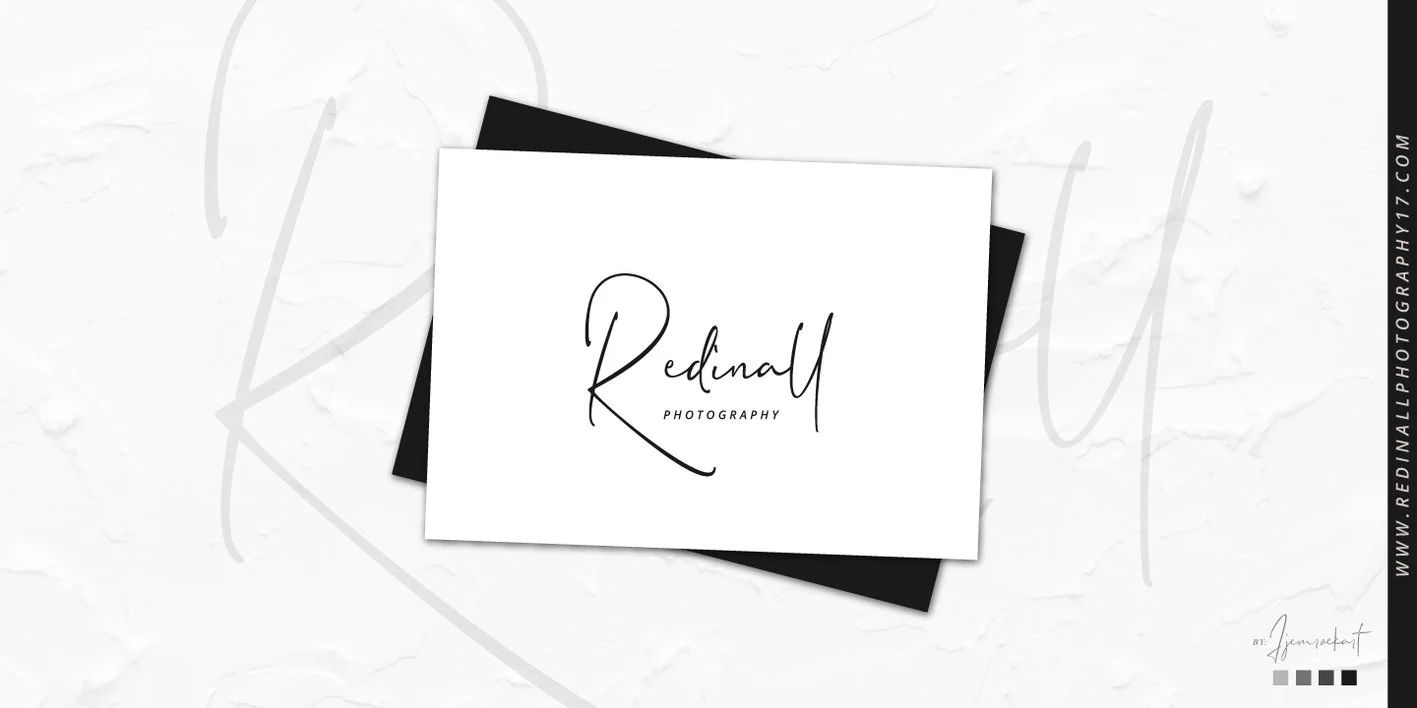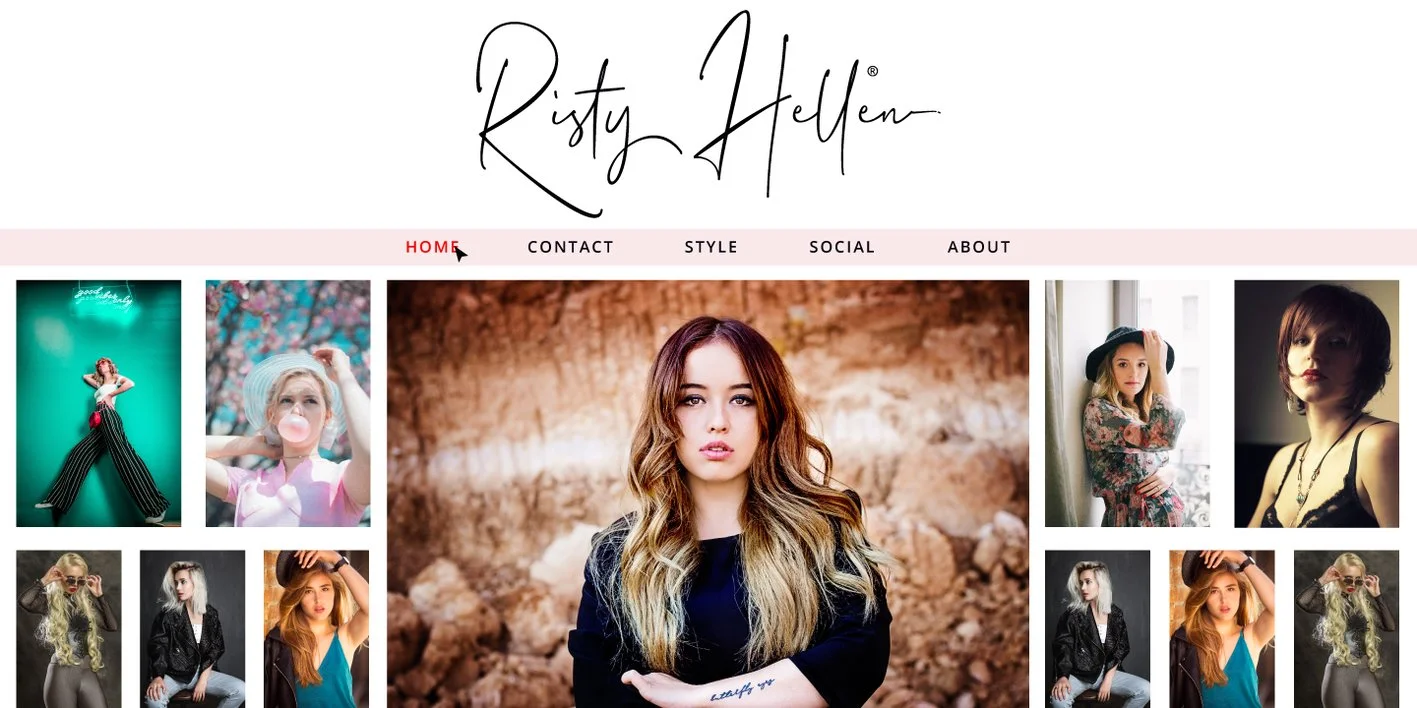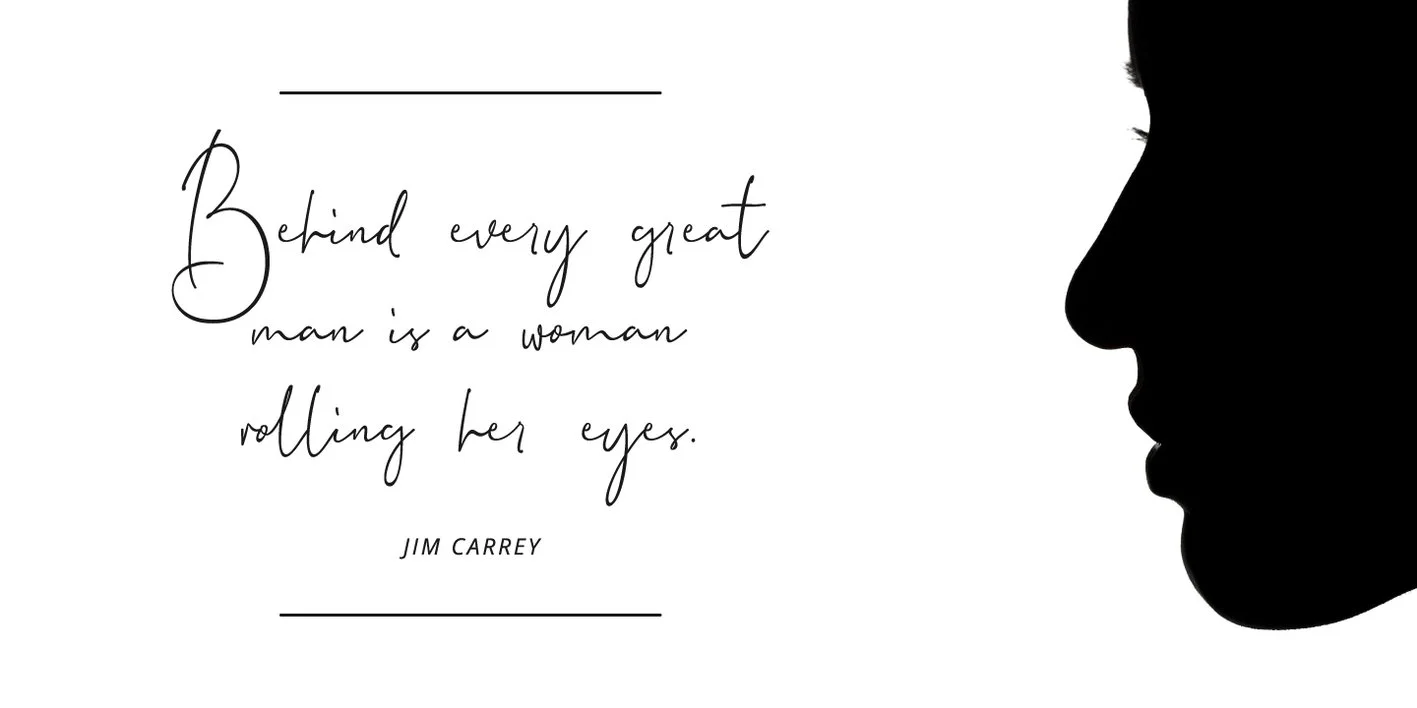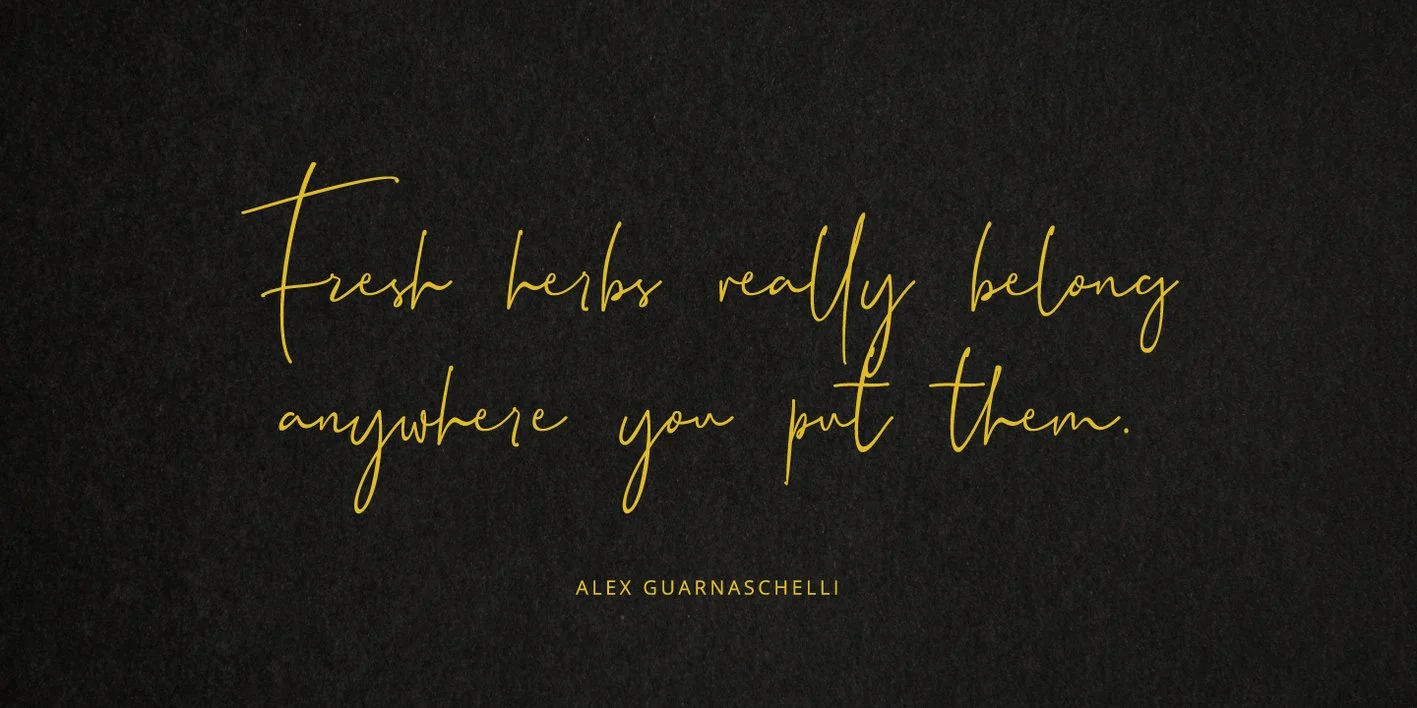
Elvira Font
A good typeface communicates tone before a single word is read. Elvira achieves this through visual harmony and precise spacing. The typeface brings a versatile sensibility to a broad range of creative disciplines, with strong typographic hierarchy support that holds up whether the work is print-first or screen-first.
In practice, Elvira proves particularly effective for social media graphics, annual reports, signage systems, environmental graphics, advertising campaigns. Designers reaching for it find that the type decisions feel resolved rather than laboured — a useful quality when client timelines are tight.
The range of applications extends to brand identity systems, editorial layouts, poster creation, logo design. That breadth is deliberate: the proportions and spacing were stress-tested across a wide range of mock briefs before the typeface was finalised.
Pairing Elvira with a contrasting serif or a neutral grotesque gives mixed-format layouts a clear visual grammar without requiring constant size adjustments to establish hierarchy.
Graphic designers working on identity systems find Elvira a reliable choice for projects that demand both personality and restraint. The design avoids the self-conscious quirkiness that dates quickly, settling instead for considered distinctiveness that holds up over time.